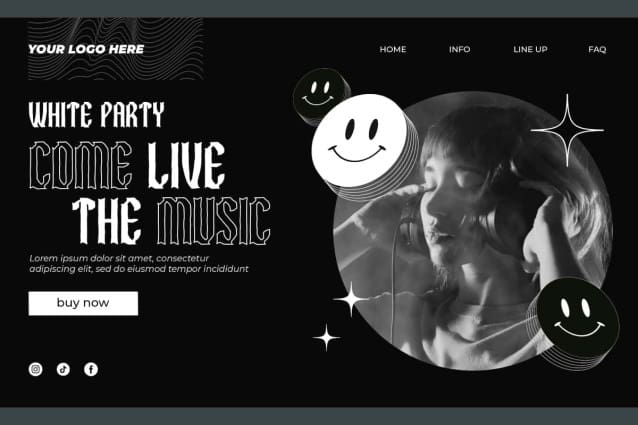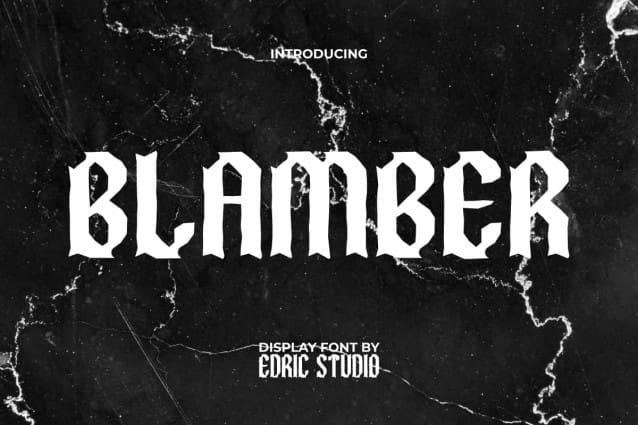
Blamber Font
Blamber Font is a blackletter, grunge and classic display font based on the gothic style made simpler and more modern with the support of stylized alternate characters to give more composition. Inspired by the cover of rock ‘n’ roll music in the mid-1960s. Suitable for cover designs, headlines, labels, logos, posters, screen print, signage, stationery, sticker, websites, etc. It will support your unlimited creation to present the desired font appearance.